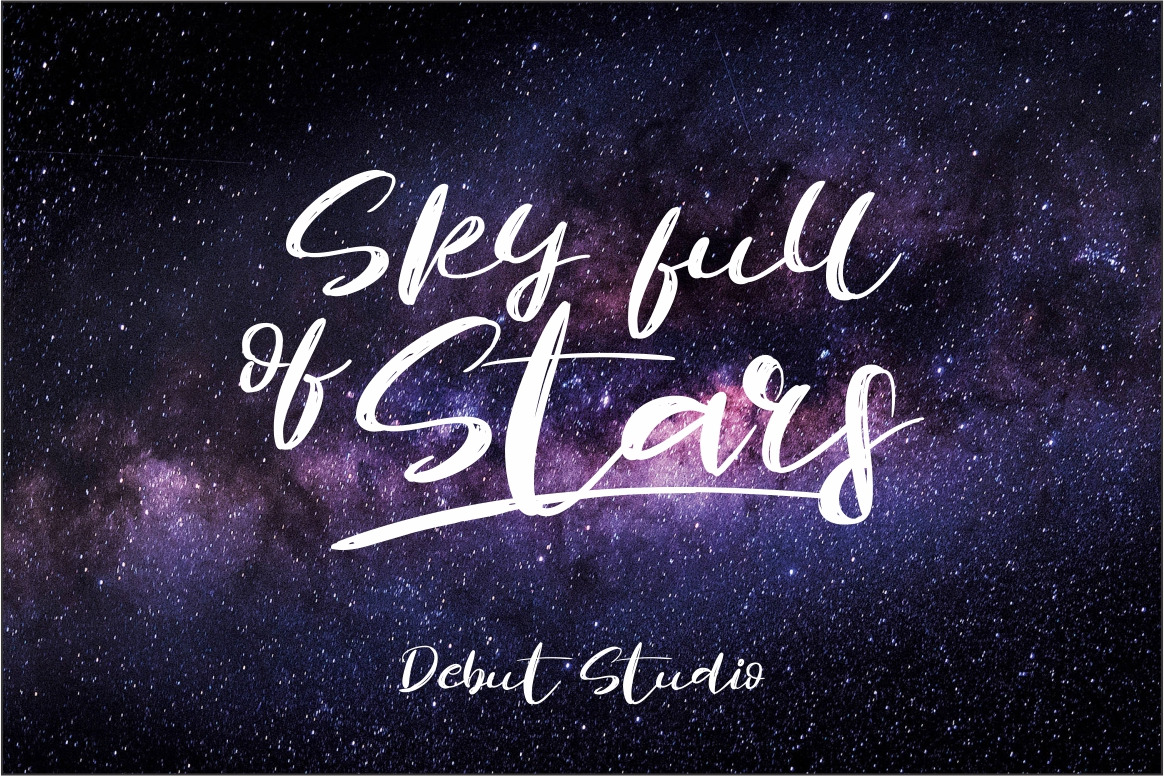
Revolution Brush Font
This font was handmade, really awesome to make your designs with nice background or photo, and give you nice texting to your some write on the paper.
This font also suitable for your awesome works like Poster, Logo, T-Shirt Design, Advertisement, Quote Display, Wedding Invitation etc